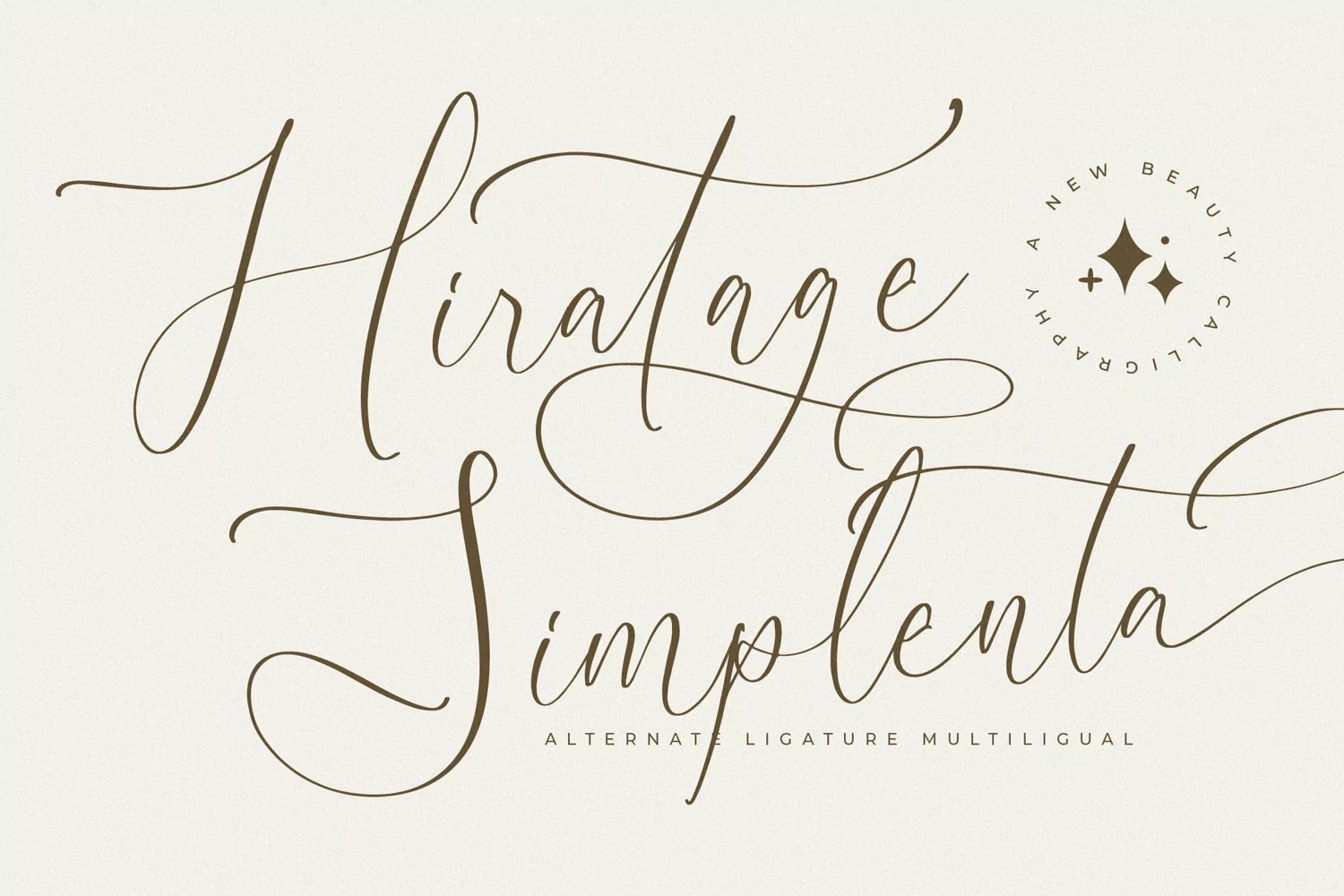
Hiratage Simplenta New Beauty Calligraphy
Proudly present Hiratage Simplenta – New Beauty Calligraphy , created by Storytype,
A luxury script that has own unique style & modern look.
This typeface is perfect for an elegant & luxury logo, book or movie title design, fashion brand, magazine, clothes, lettering, quotes, and so much more.
• Alternate and Ligature